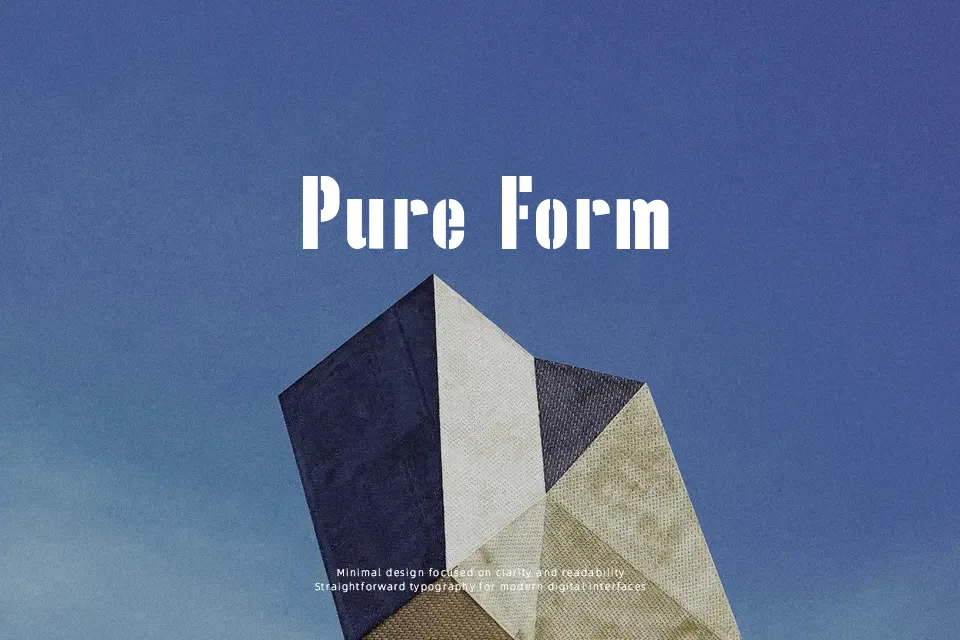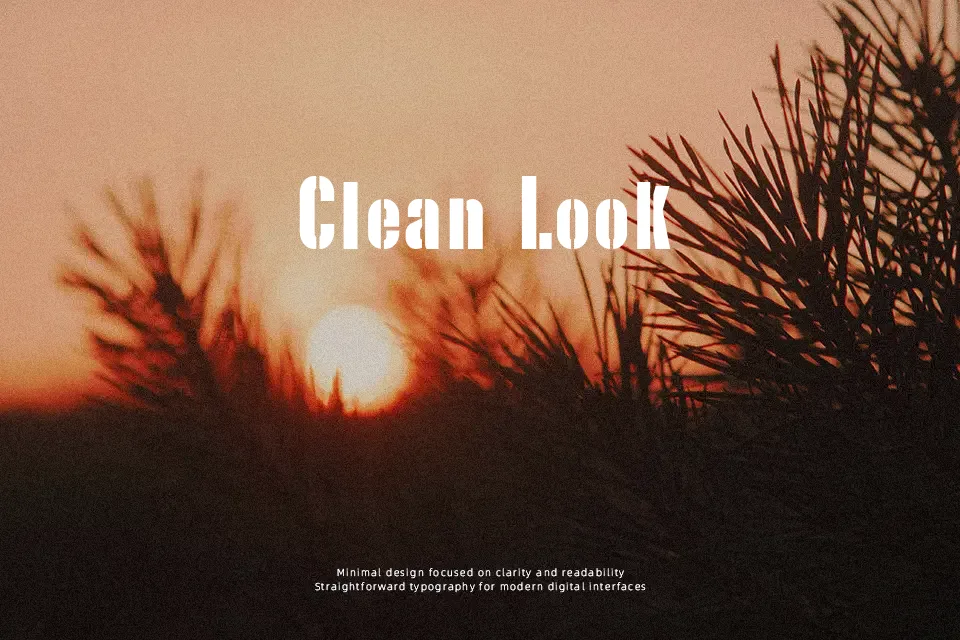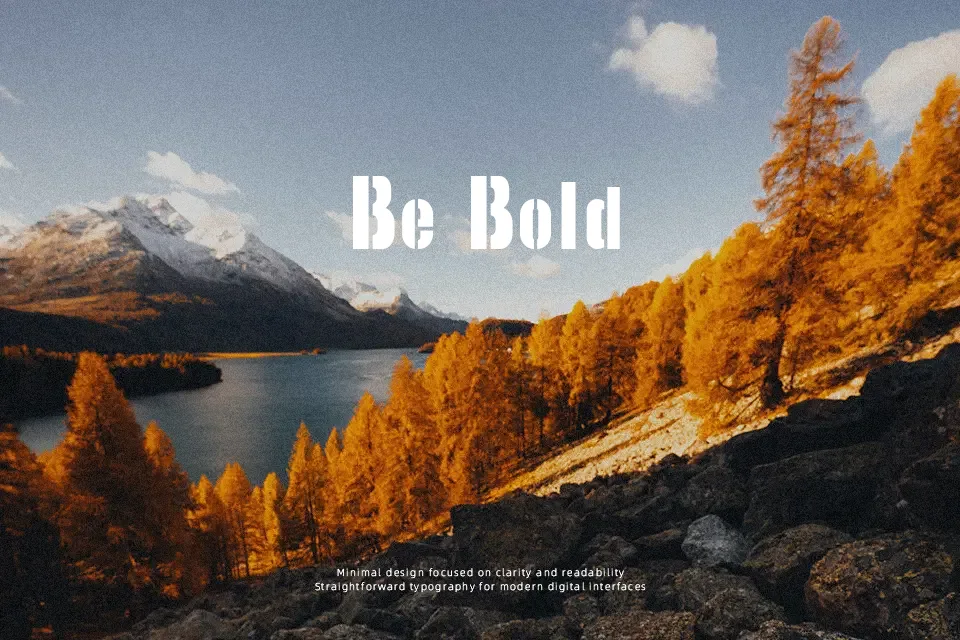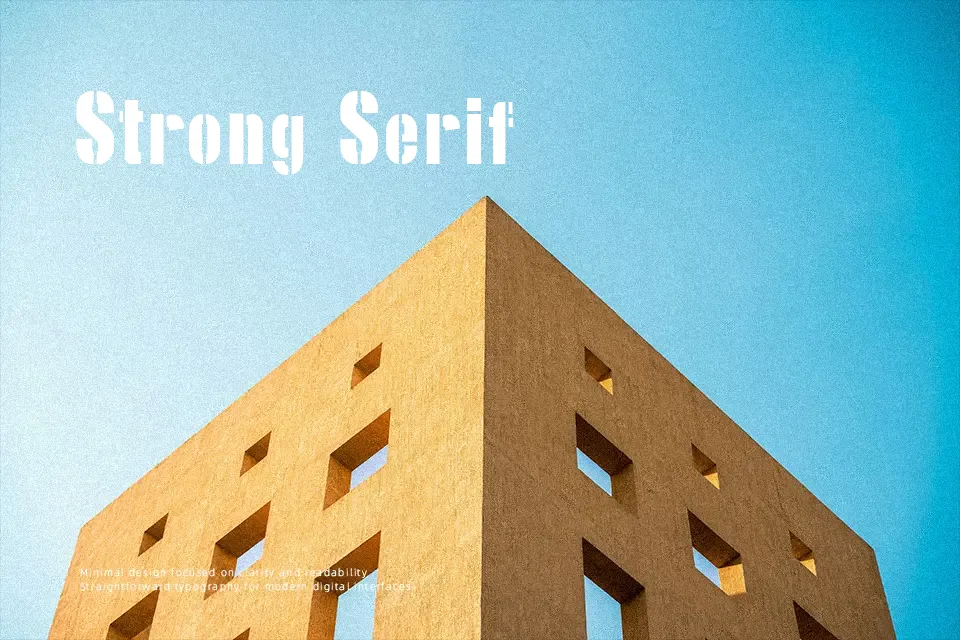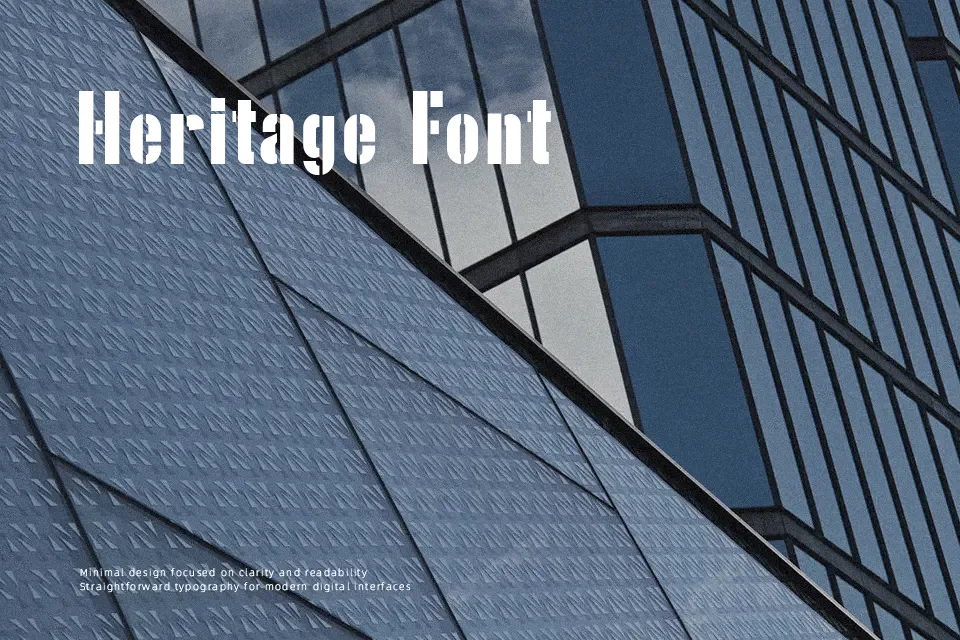
Overlord Stencil Font
Overlord Stencil Font uses solid, low-contrast strokes interrupted by clear stencil cuts across its uppercase, lowercase, numerals, and punctuation. The forms are broad, angular, and consistently constructed, with balanced spacing that keeps short words recognizable at display sizes. Its segmented structure creates an industrial, militaristic impression suited to posters, game artwork, clothing prints, and bold labels. The spacing helps maintain clarity in larger headlines, while the stencil breaks make the design less comfortable for extended reading. It works best when used sparingly and given enough scale to preserve the internal details.
Best For: military-style poster headlines,gaming title graphics,apparel prints,industrial product labels
Perfect for advertising, film, and gaming, with a bold and decorative style.